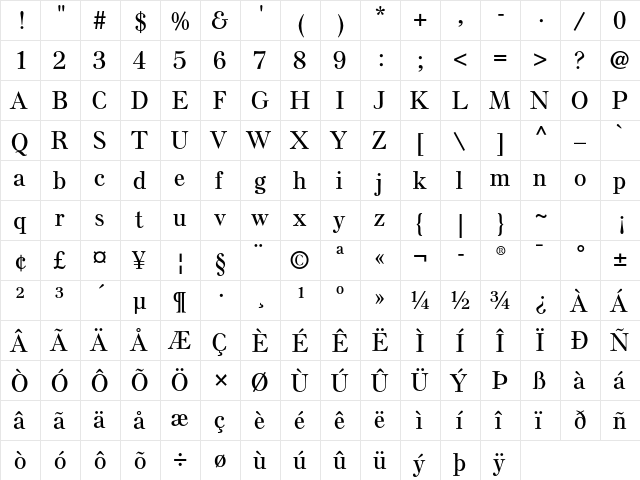
Else NPL Std Semibold
| Designer | Robert Norton |
Design Context for Else NPL Std Typeface
Else NPL Std is a composed and adaptable typeface that performs quietly and consistently across a wide range of design contexts. Its bold stroke weight gives it real presence on the page.